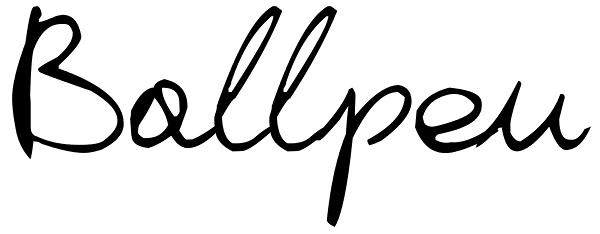
Ballpen
This font is packed with over 1,100 glyphs and gives you vast possibilites to give handwritten feel to your text - be it in English, Íslenska, Russian, Cymraeg or ÄŒeština. Apart from featuring great number of letters there are also dingbats, roman...
Ballpen
Ballpen Slanted